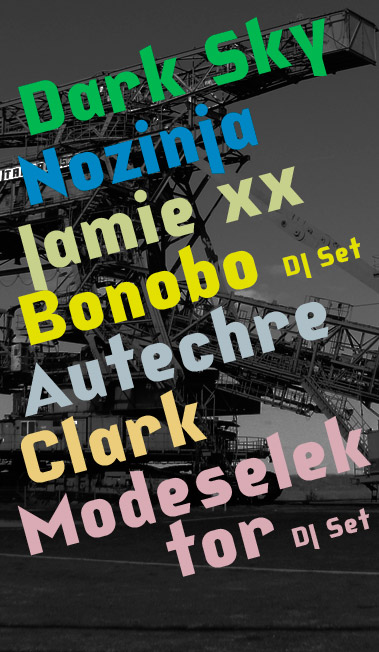
A good take on the classics - with some nice individual touches.
Nice sans serif face with period features of the 1920s. With proper kerning (see demo poster) the text looks great. 10/10
Love the subtle details in this.